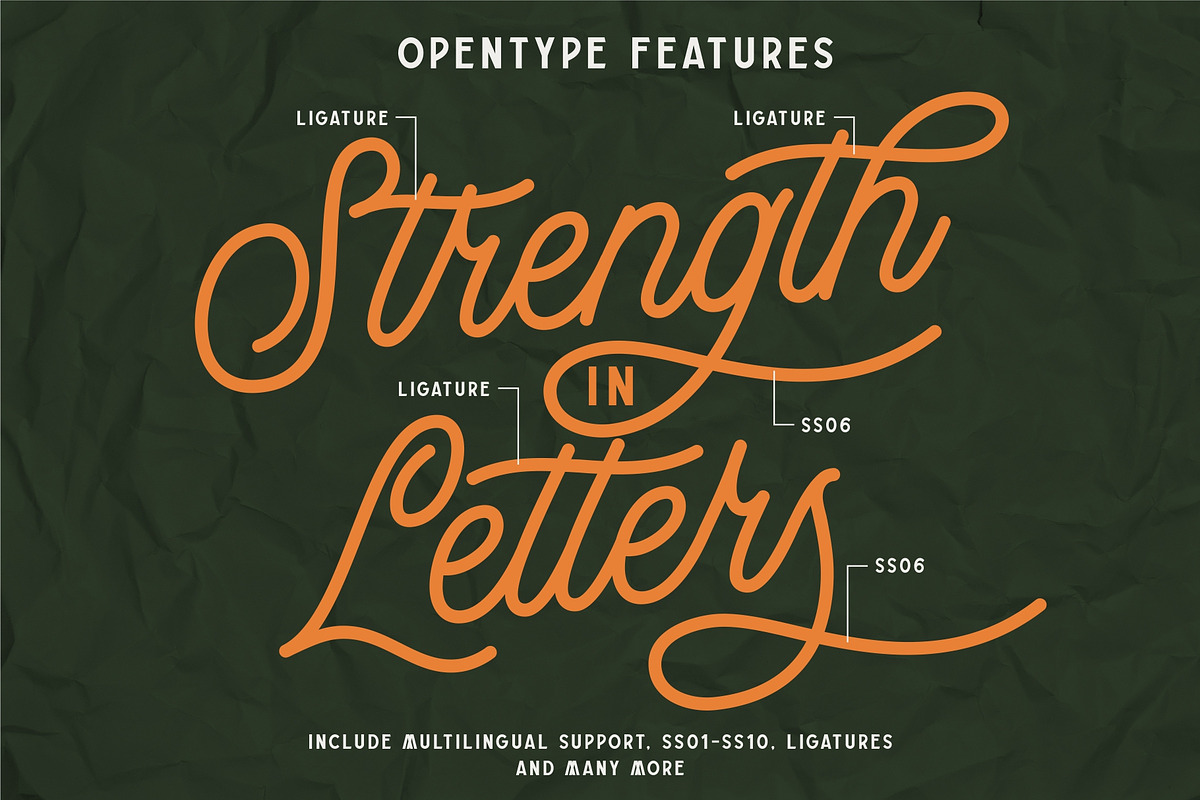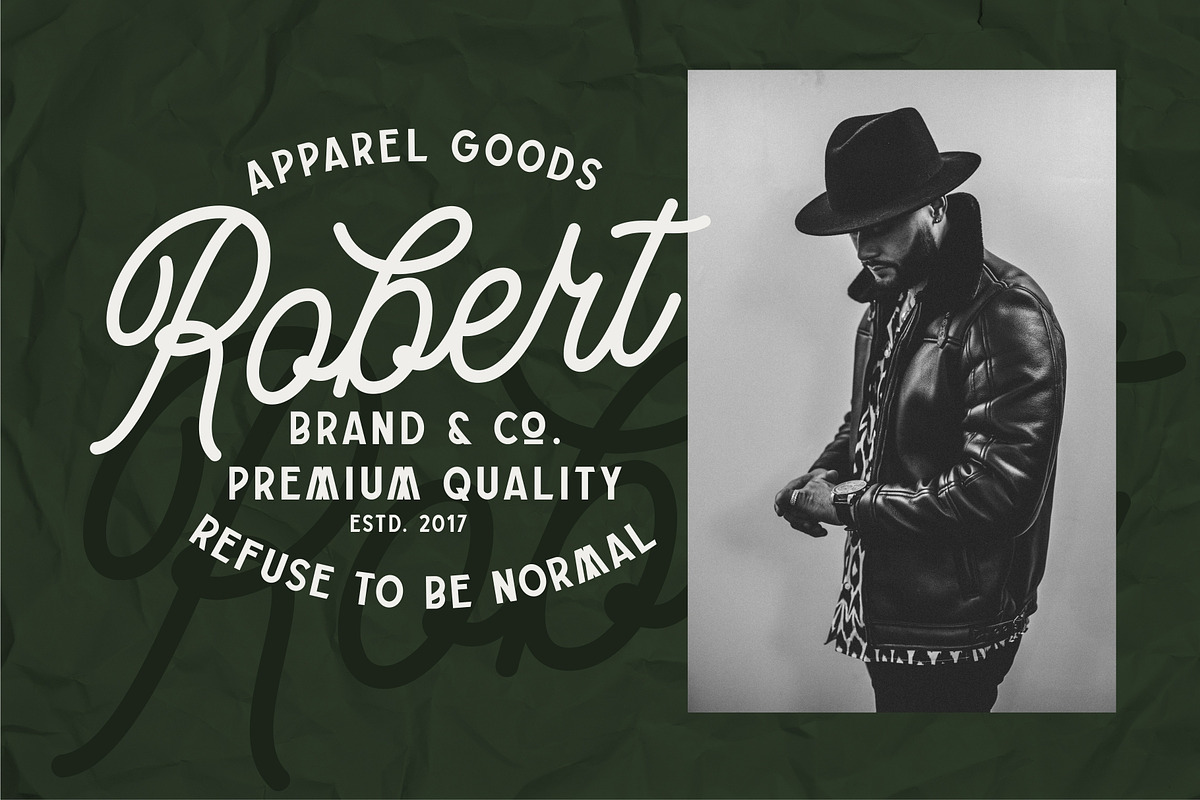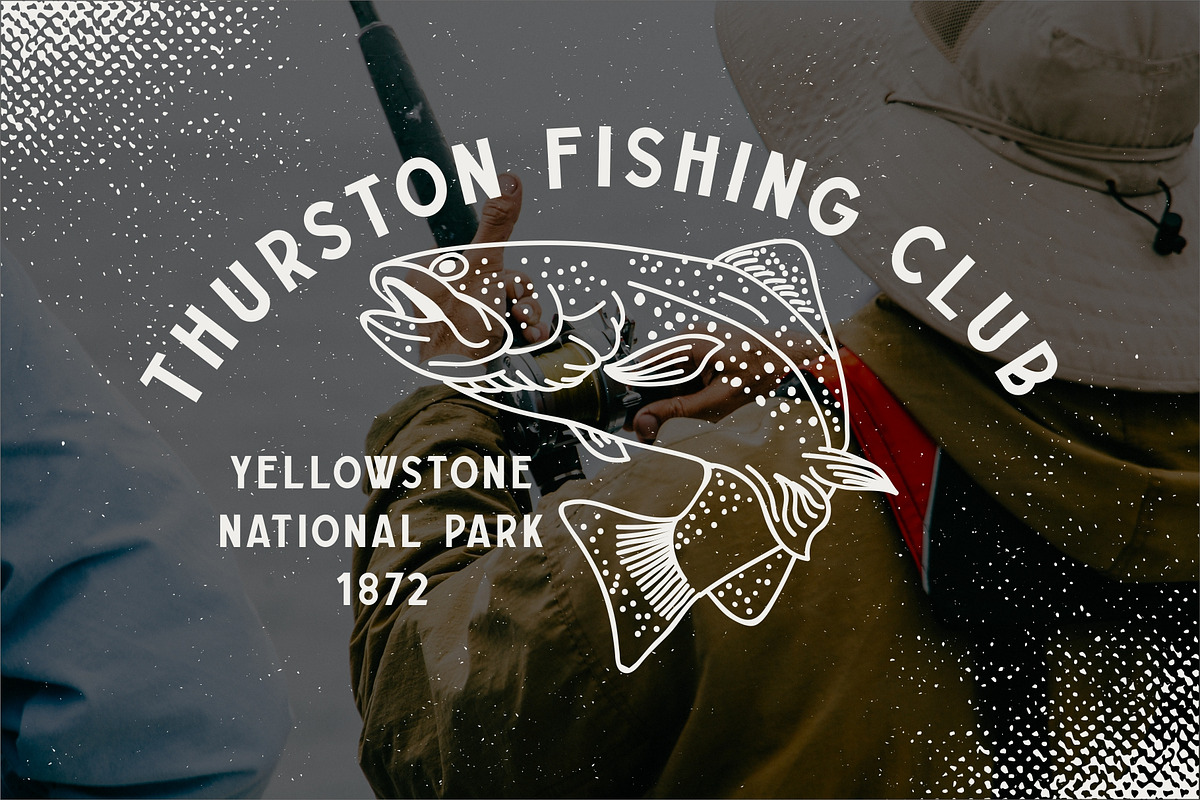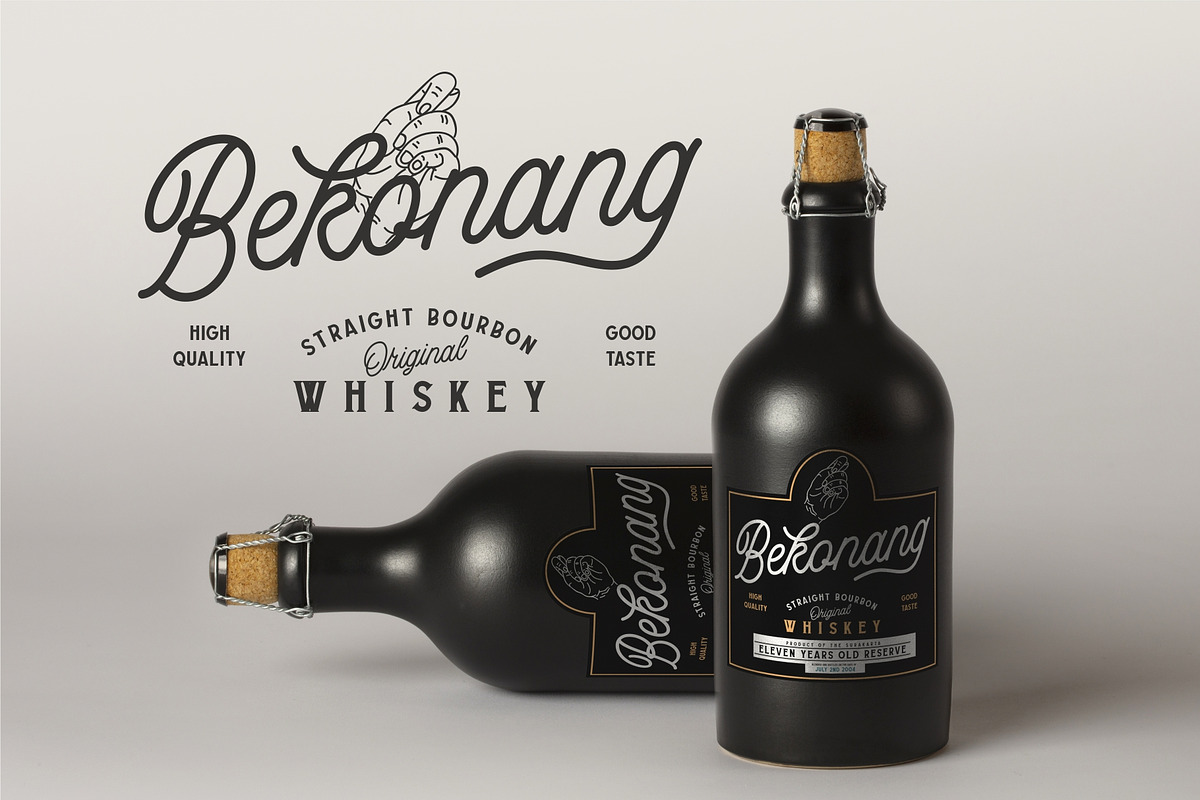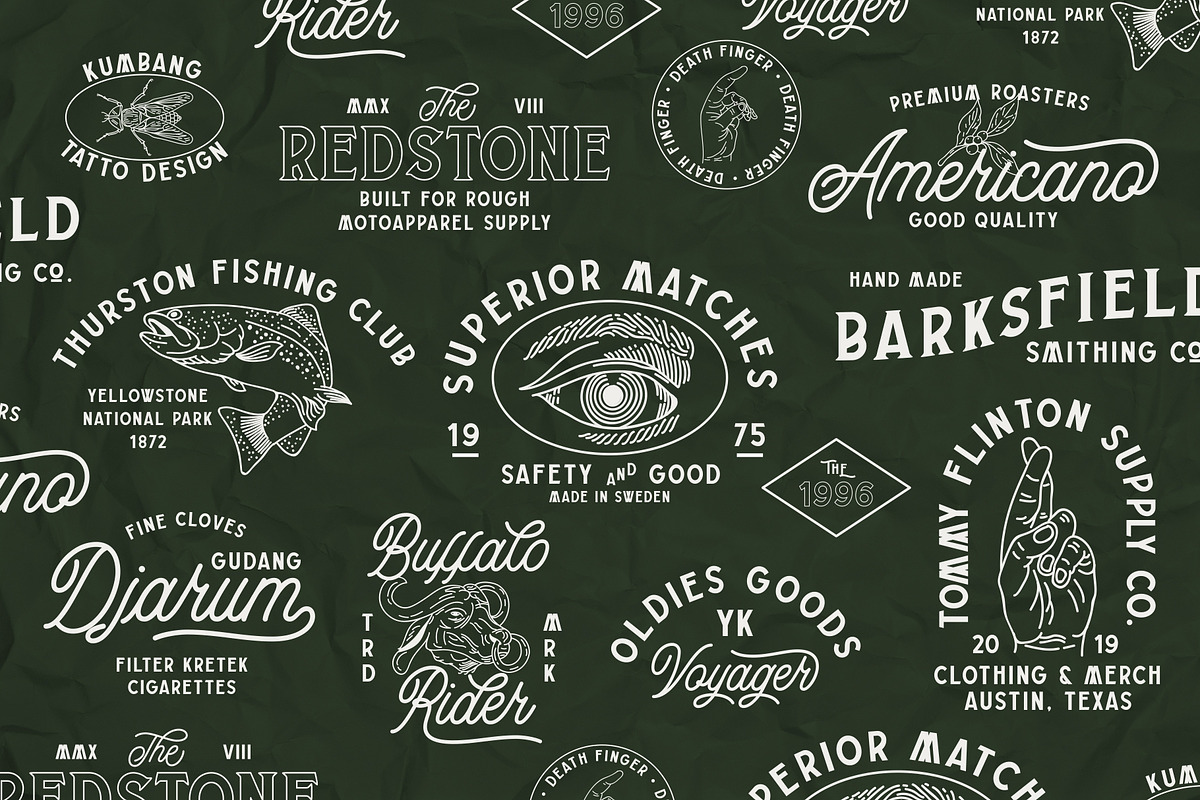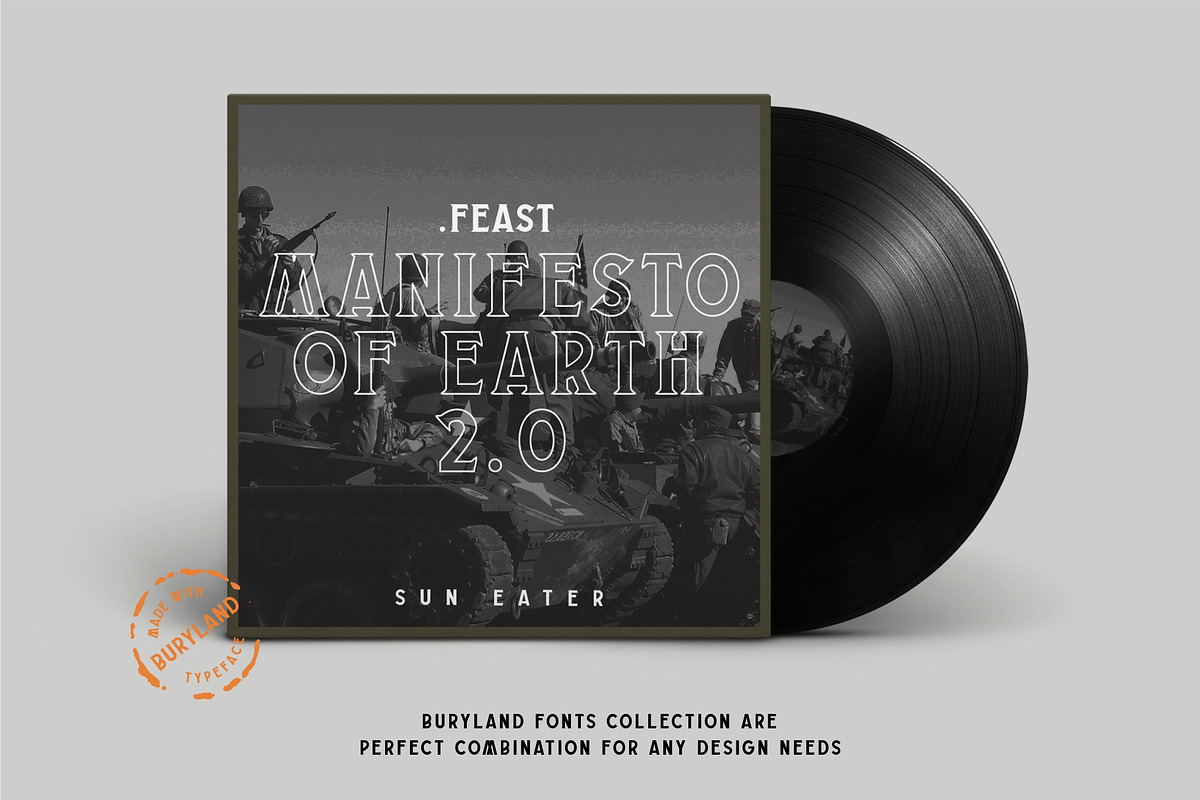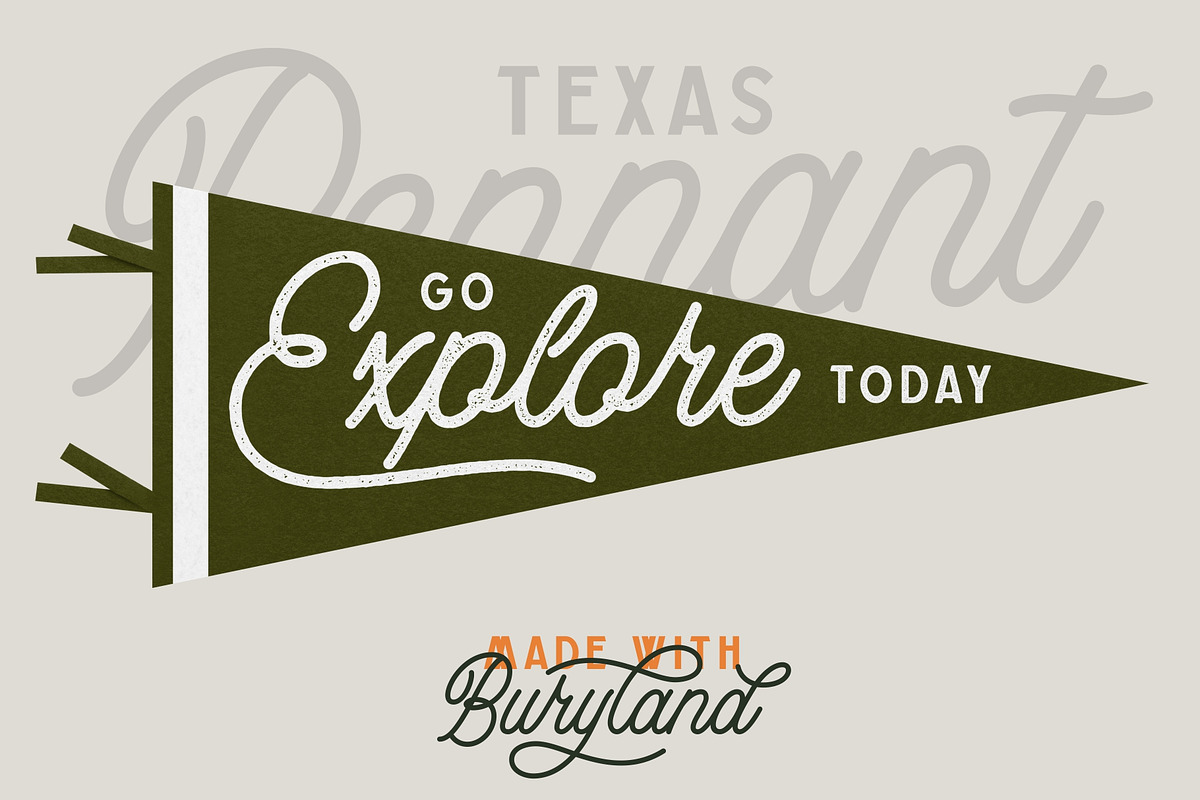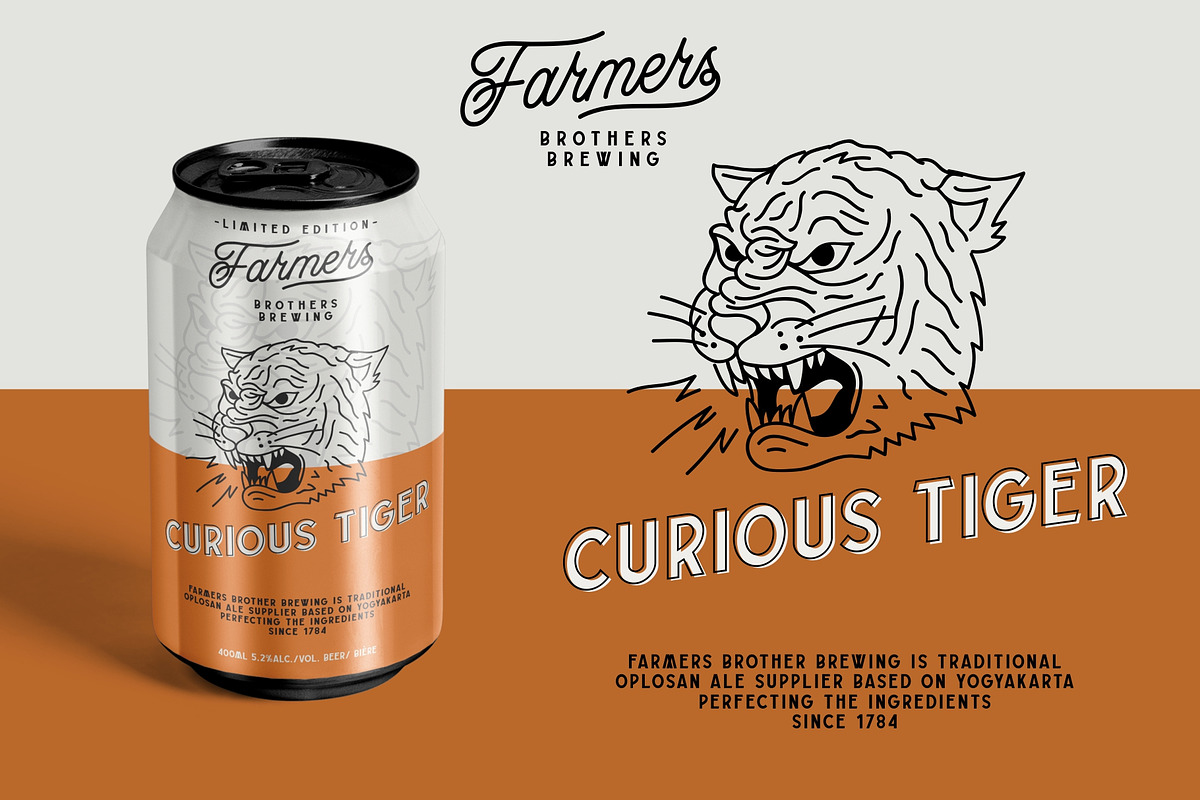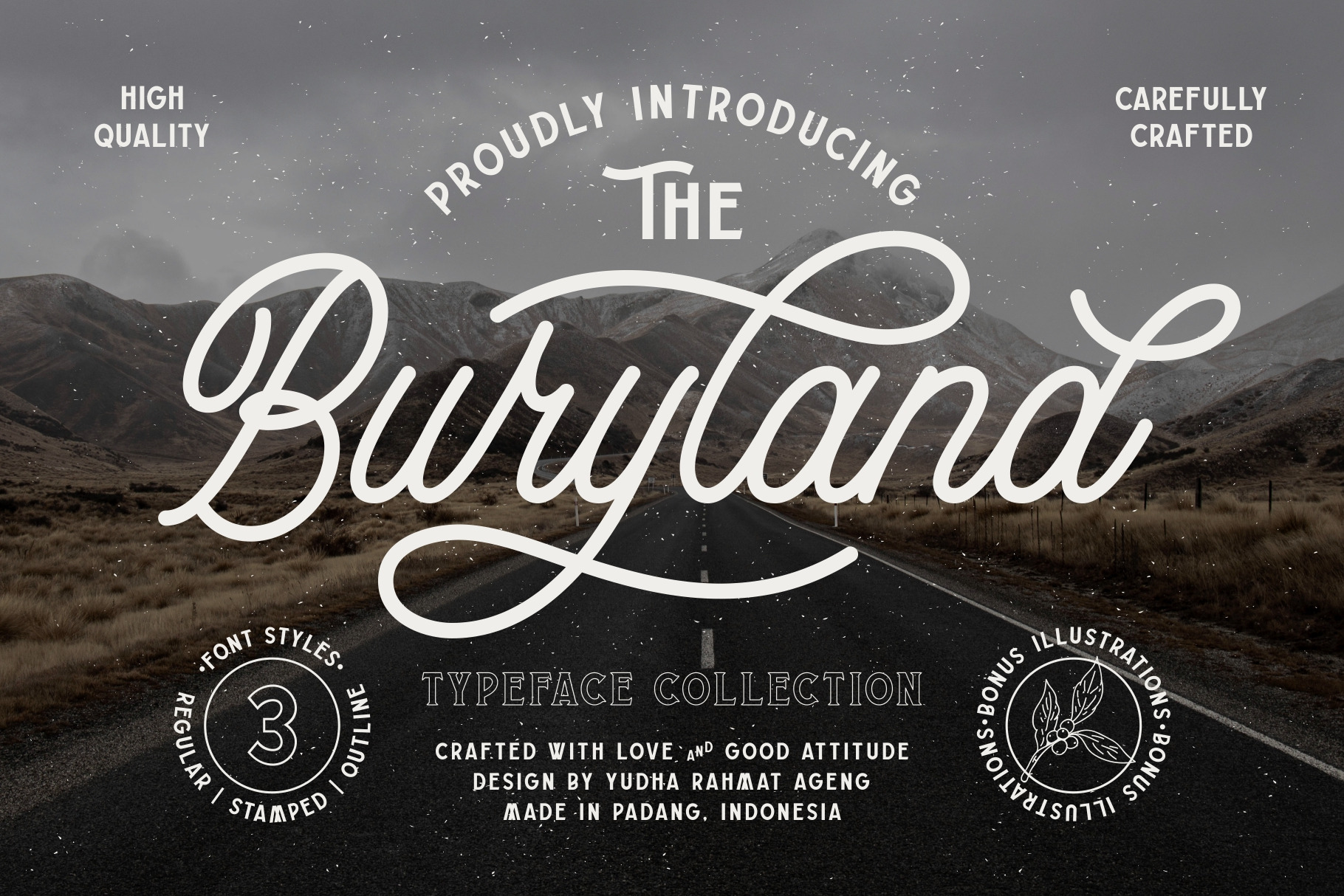
Buryland Typeface Family
PRESENTING BURYLAND TYPEFACE COLLECTION
Buryland Font is Handmade Script, Sans, Serif inspired by Retro and Modern hand lettering style, so you can use this font into any style of your design.
Buryland Font has three styles for each font, Regular, Stamped, and Outline. Buryland Font also has a standart Multilingual Support.
With bonus illustration in this package, this fonts are great for Logotype, Branding Design, Logo Design, Digital Lettering Arts, Instagram Design, T-Shirt/Apparel, Badge, Packaging, Poster, Magazine, Book Cover, Quotes, Signs, Advertising Design, and any design needs.
Buryland Font Features :
- Upper and Lowercase Standard Characters, Punctuation, Numerals
- Opentype Features such as Standard Ligatures, Discretionary Ligatures and Stylistic Set (ss01 – ss10)
- Includes a range of multilingual characters.
Mix and match the alternate characters to add an attractive message to your design.